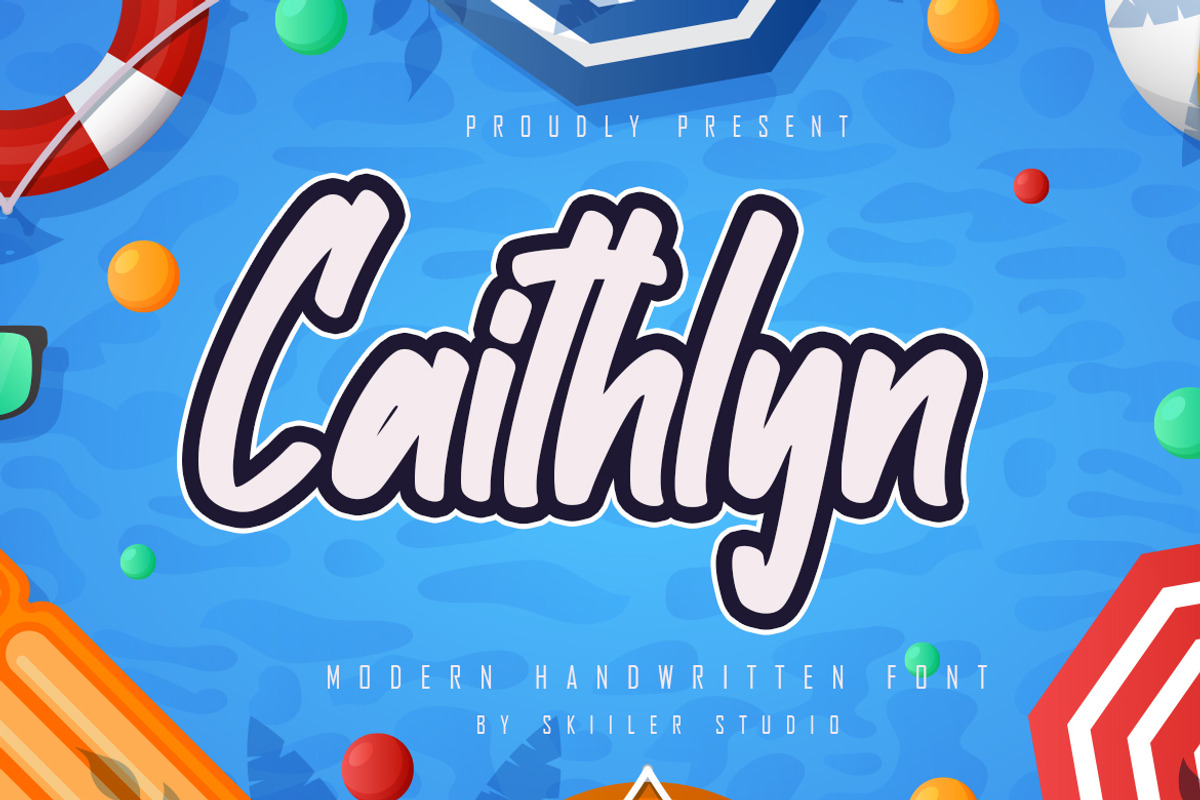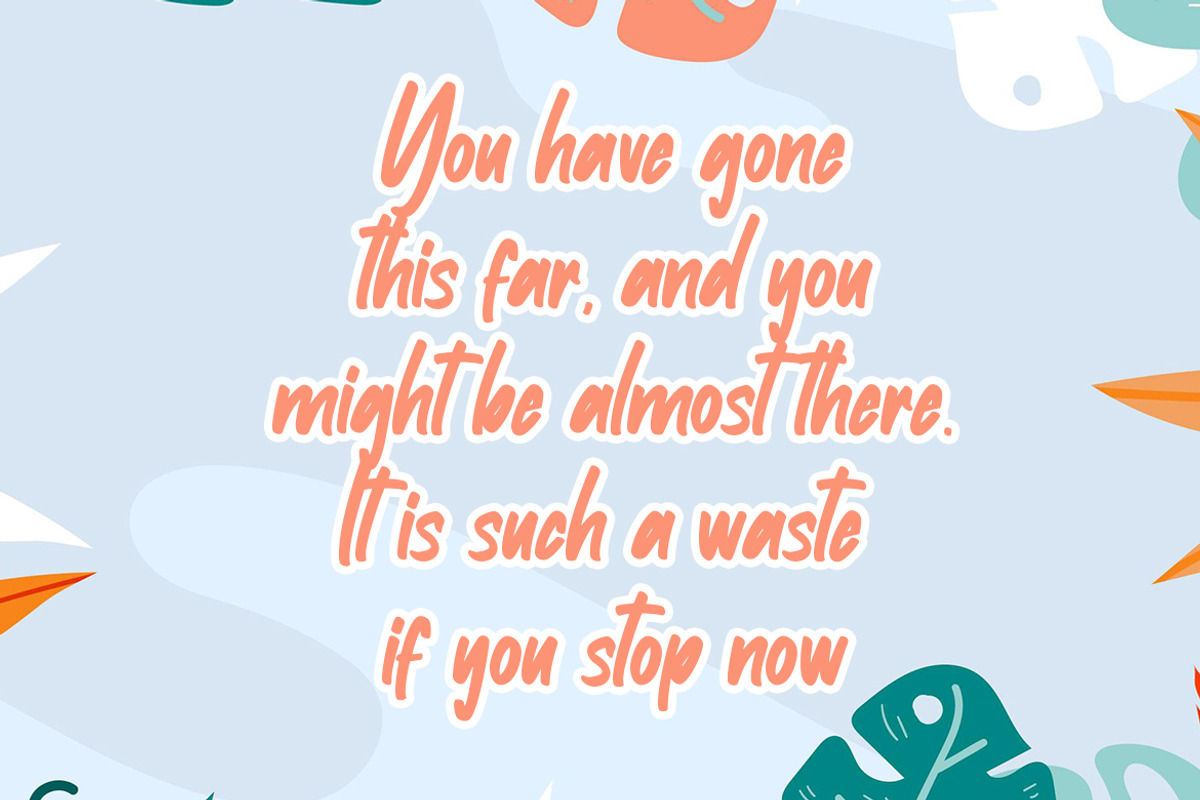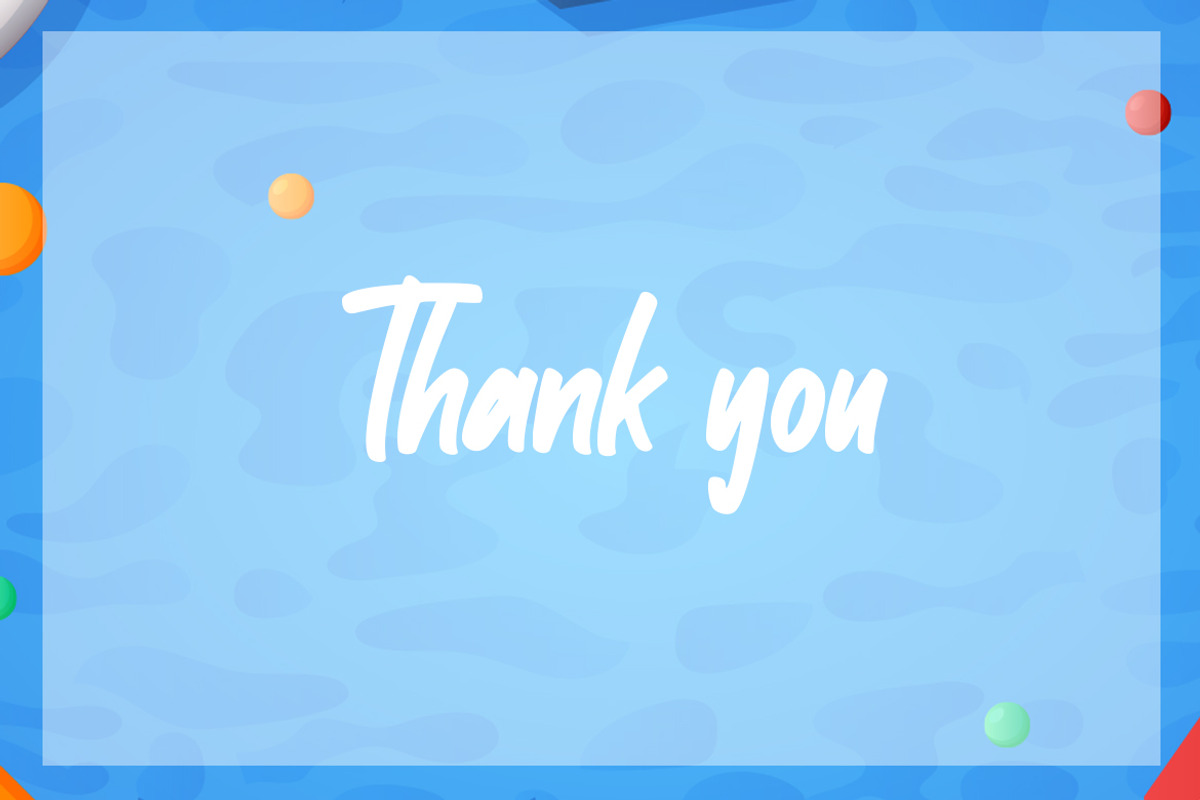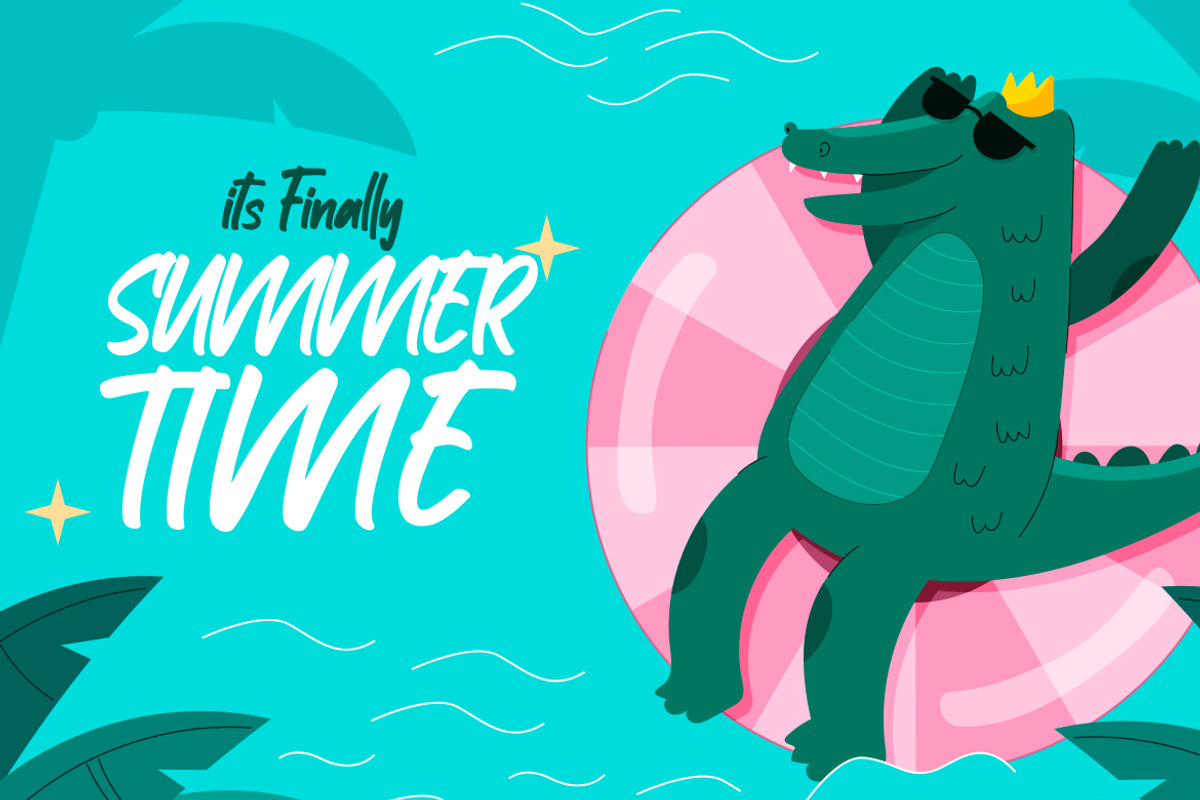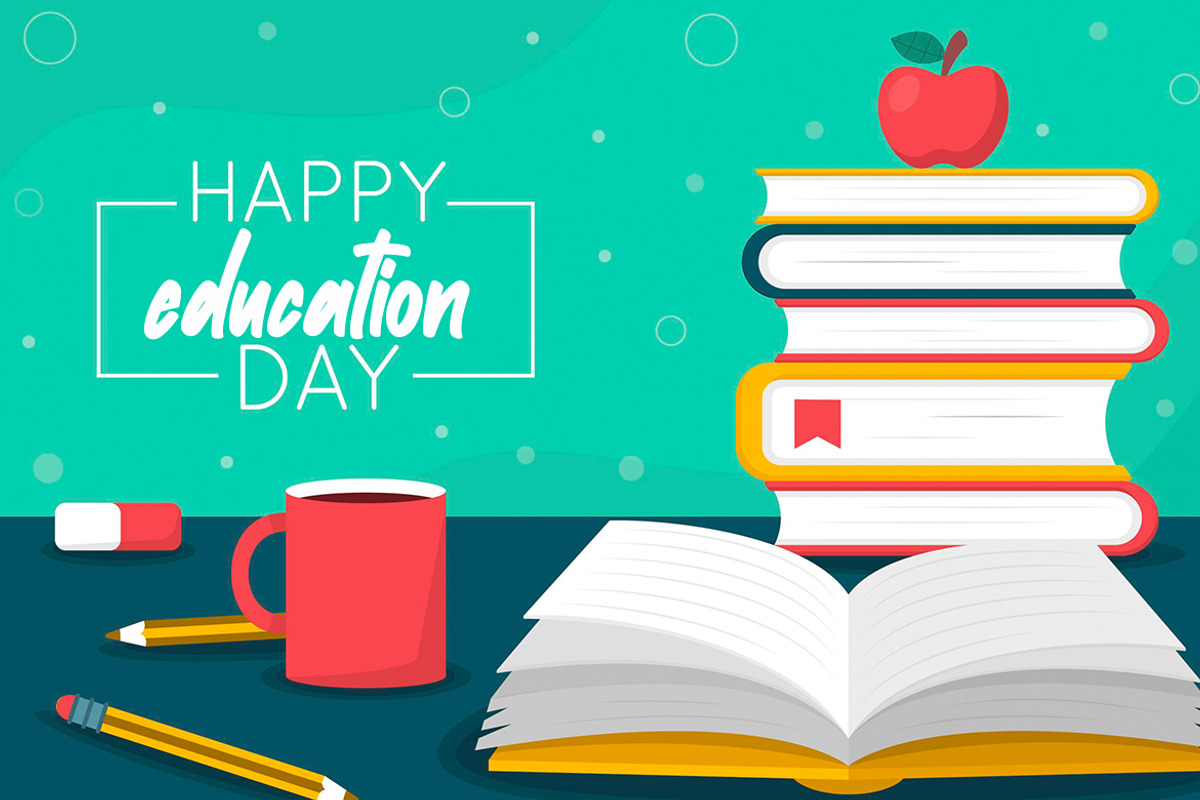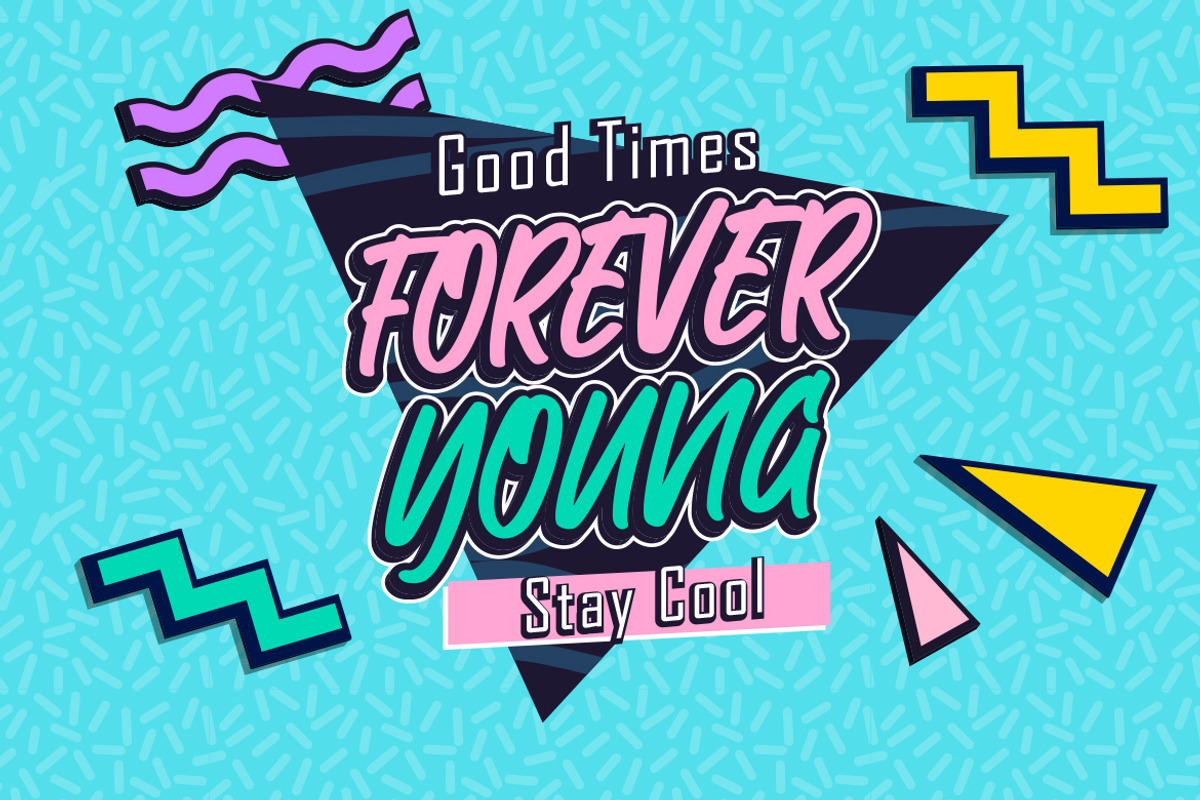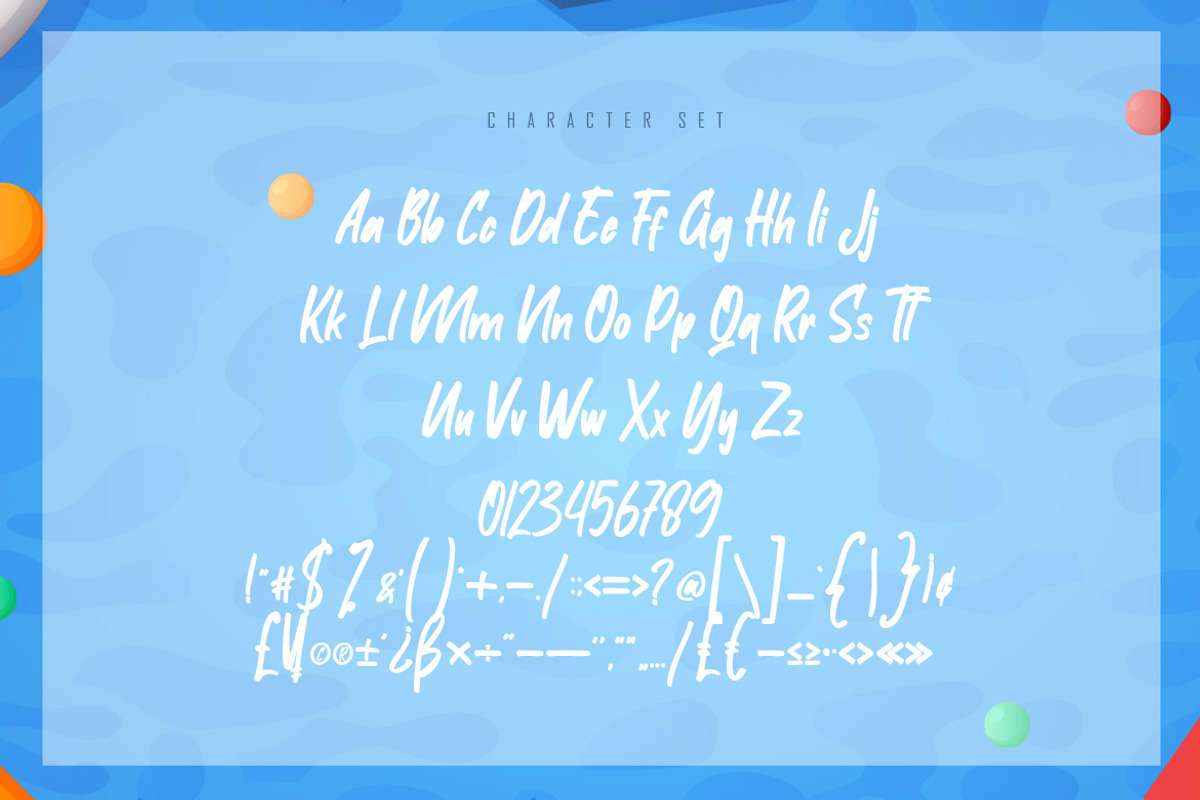
Caithlyn - Modern Handwritten Font
Caithlyn Handwritten Display Font. It looks beautiful on a variety of designs requiring a personalized style, This font is PUA encoded which means you can access all of the glyphs and swashes with ease!